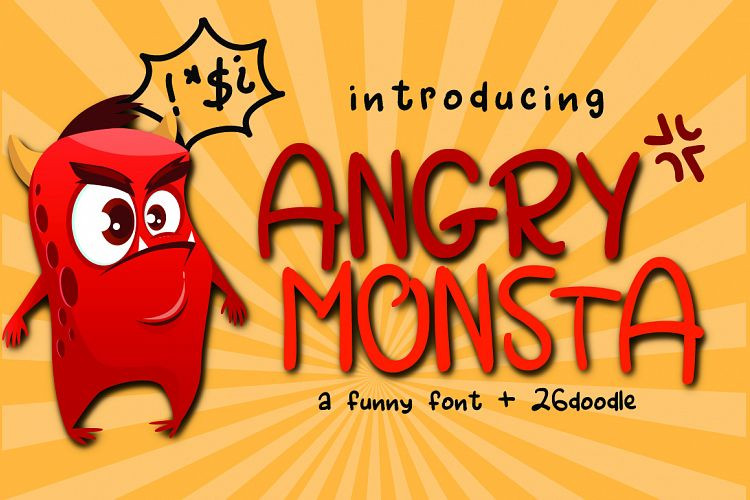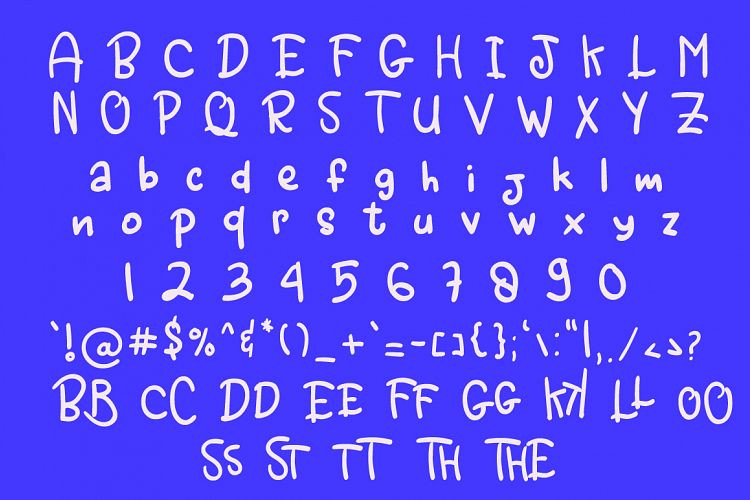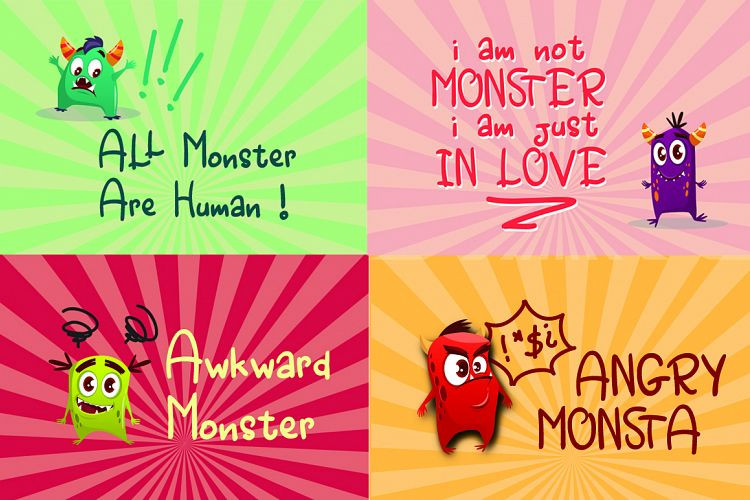
Angry Monsta Handwritten Font
Rawwr! The expressive, smooth, and funny handwritten font : Angry Monsta Handwritten Font
This is a decorative brush font, which contains the usual characters from A-Z , a-z, 0-9 and standard symbols. Also it comes with extra ligatures and 26 ‘Angry’ doodles which you can mix and match together !
Set your font to “Angry Monsta Doodle” and type from A to Z, and you’ll get the comical angry doodle to make your design more cute and expressive!